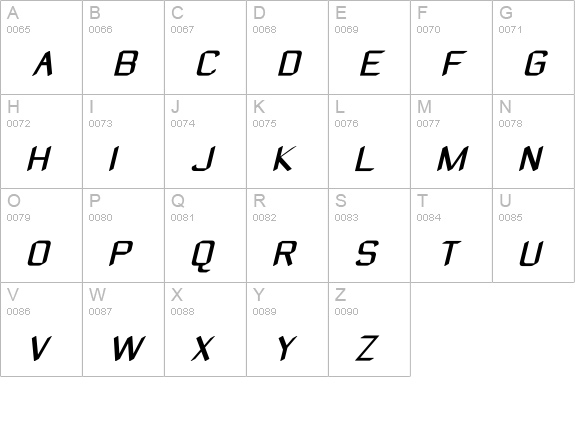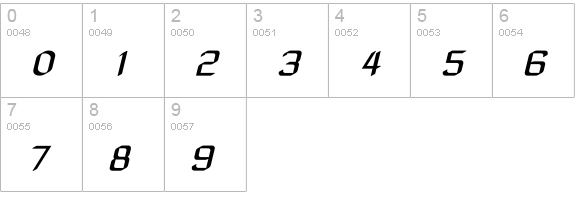
ZyphyteOblique Font Details
Introducing ZyphyteOblique font, a stunning display typeface that exudes elegance and sophistication. Its sleek, slanted design is perfect for adding a touch of modern flair to your projects. Whether you're designing a logo, a poster, or a website, ZyphyteOblique font will make your text stand out with its unique style. This versatile font is free to download at FontsMarket.com, making it accessible to everyone looking to elevate their designs with a touch of refinement. Its clean lines and graceful curves will give your creations a polished and professional look. Unleash your creativity with ZyphyteOblique font and take your designs to the next level. Download it today and see for yourself the impact it can make on your projects.